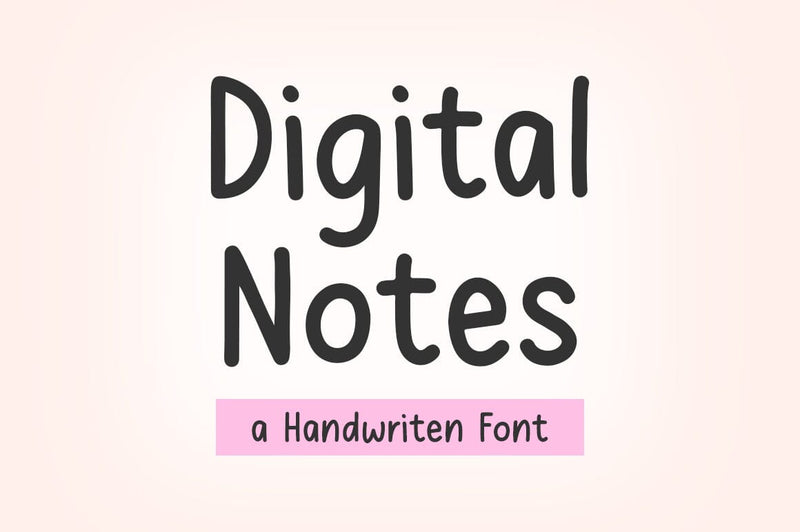
Digital Notes Font
Digital Notes is a clean and simple font that adds elegance to your planning. Perfect for journaling, to-do lists, and daily notes, this font is designed to be easy on the eyes while adding a touch of personality.
Digital Notes Features:
– Numbers and symbols